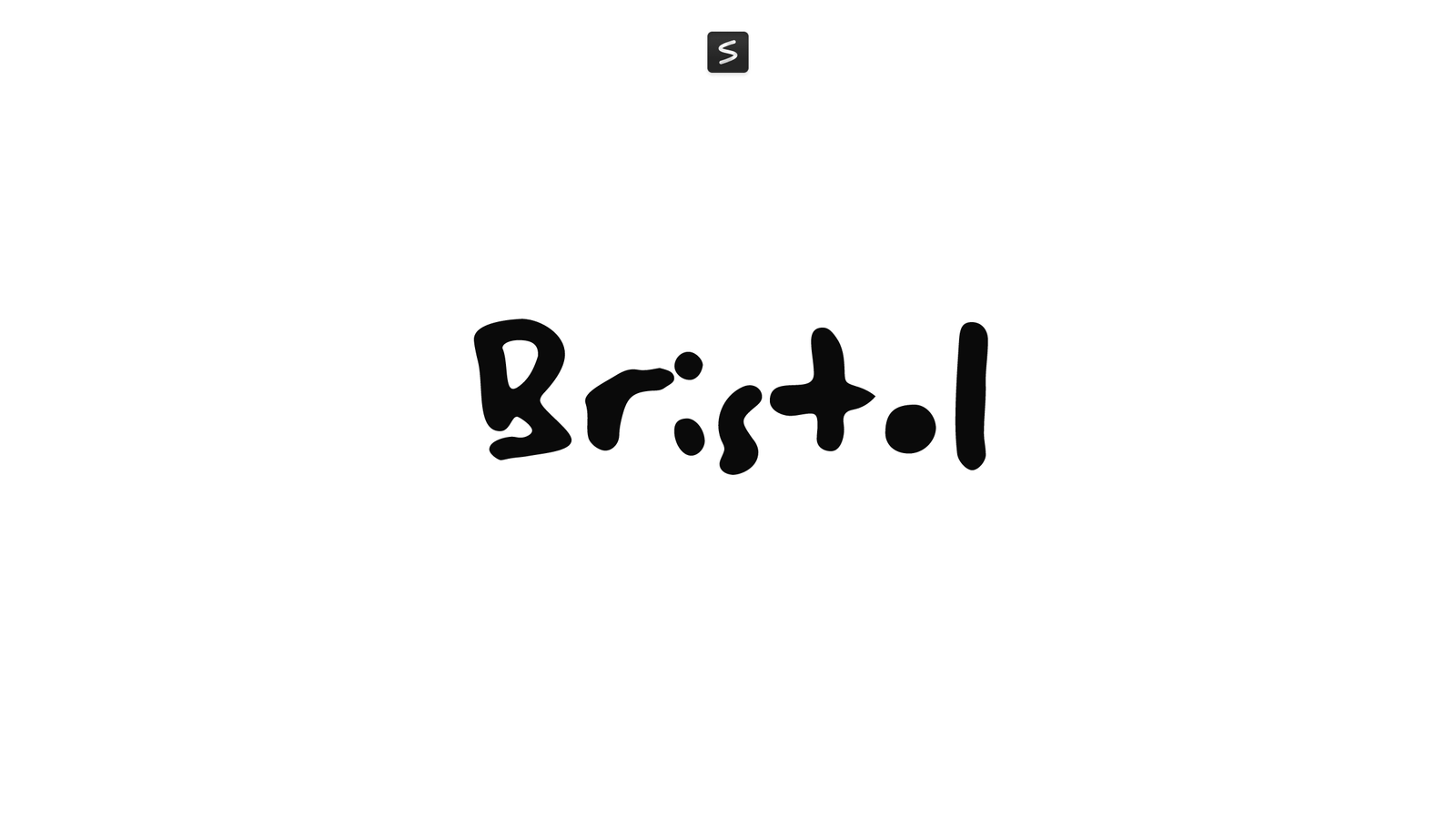
Bristol is a handwriting font designed by Jovanny Lemonad that captures the loose, personal quality of pen on paper. Its flowing letterforms and natural rhythm give text an informal, approachable character without sacrificing readability.
The font works well for designs that need warmth and a human touch. Headers, invitations, social media graphics, and branding projects all benefit from Bristol’s conversational style. It has enough personality to stand out while remaining legible across different sizes and contexts.
Whether you’re designing greeting cards, packaging, posters, or editorial layouts, Bristol brings an authentic, hand-drawn quality that feels genuine rather than forced.